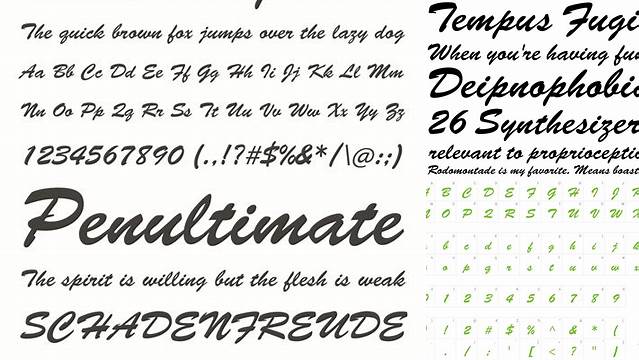
Brush Script Std Font: Free Download & Usage Guide
Hey guys! Are you looking to add a touch of classic elegance and flowing script to your design projects? Look no further! Brush Script Std is a fantastic font that can bring a vintage, handwritten feel to invitations, logos, posters, and more. In this guide, we'll dive deep into everything you need to know about Brush Script Std, including its history, characteristics, where to download it for free (legally, of course!), and how to best use it in your creative endeavors. We'll explore the nuances of this popular typeface, examining its strengths and weaknesses, and providing practical tips for making the most of its unique aesthetic. Whether you're a seasoned designer or just starting out, understanding Brush Script Std can significantly enhance your typographic toolkit. So, let's get started and unlock the potential of this timeless font! We will cover its distinctive features, such as its calligraphic strokes and connecting letters, which contribute to its unique charm and readability. Furthermore, we will delve into the historical context of Brush Script Std, tracing its origins and evolution within the broader landscape of typography. This historical perspective will provide valuable insights into the font's design principles and its enduring appeal across different eras. Additionally, we will explore real-world examples of how Brush Script Std has been used effectively in various design applications, from branding and advertising to packaging and editorial design. These examples will serve as inspiration and guidance for your own creative projects, helping you visualize the font's versatility and potential impact. We will also discuss common pitfalls to avoid when using Brush Script Std, such as overusing it in designs or pairing it with incompatible fonts. By understanding these potential challenges, you can make informed decisions and ensure that Brush Script Std enhances rather than detracts from your overall design aesthetic. Finally, we will provide a comprehensive overview of the licensing considerations associated with Brush Script Std, ensuring that you are aware of the legal aspects of using the font in your projects. This will help you avoid any copyright issues and ensure that you are using the font responsibly and ethically.
Let's get down to the basics. Brush Script Std is a casual, connecting script typeface designed by Edwin W. Shaar in 1942. It mimics the look of handwriting created with a brush, giving it a personal and informal vibe. Think of it as a friendly, approachable font, perfect for projects that need a human touch. The font's character set includes a comprehensive range of glyphs, supporting various languages and typographic needs. It features both uppercase and lowercase letters, as well as numerals, punctuation marks, and symbols. The lowercase letters are designed to connect seamlessly, creating a flowing and cohesive script. This connectivity is one of the key characteristics that distinguishes Brush Script Std from other script fonts, lending it a natural and fluid appearance. The font's design also incorporates subtle variations in stroke weight and letterform, further enhancing its handwritten feel. These variations mimic the slight imperfections and irregularities that are inherent in actual brush lettering, adding to its authenticity and charm. Brush Script Std is particularly well-suited for headlines, titles, and short blocks of text, where its distinctive character can make a strong visual impact. It is often used in invitations, greeting cards, posters, and advertising materials, where its friendly and informal tone can help create a welcoming and engaging message. However, due to its cursive nature and relatively informal appearance, Brush Script Std may not be the best choice for body text or lengthy paragraphs. In these applications, its readability can be compromised, and it may not convey the desired level of professionalism or authority. Therefore, it is important to consider the specific context and purpose of your design when deciding whether to use Brush Script Std. In summary, Brush Script Std is a versatile and expressive script font that can add a touch of personality and warmth to a wide range of design projects. Its handwritten appearance and connecting letterforms make it a popular choice for designers seeking a casual and approachable aesthetic. However, it is important to use the font judiciously and in appropriate contexts to maximize its impact and avoid any potential readability issues.
So, what makes Brush Script Std stand out from the crowd? Let's break down its key features:
- Connecting Letters: The lowercase letters flow seamlessly into each other, creating a natural, handwritten appearance. This is a signature element of Brush Script Std and adds to its overall charm.
- Casual and Informal: It's not stuffy or formal. Brush Script Std has a relaxed and friendly feel, making it ideal for projects that need a personal touch.
- Brush-like Strokes: The font mimics the strokes of a brush, with varying thicknesses and a slightly textured appearance. This gives it a handmade quality.
- Versatile: While it shines in headlines and short text blocks, it can also be used effectively in logos, invitations, and other design elements.
- Readability: While stylish, Brush Script Std maintains good readability, especially in larger sizes. However, it's best to avoid using it for long blocks of text.
- Distinctive Swashes: Some versions of Brush Script Std include decorative swashes and alternates, adding even more flair and personality to the font.
These key features combine to make Brush Script Std a unique and versatile typeface that can enhance a wide range of design projects. Its connecting letters, casual tone, and brush-like strokes contribute to its handwritten appearance, while its readability and stylistic options make it a practical choice for various applications. The font's distinctive swashes and alternates provide additional opportunities for customization and creative expression, allowing designers to tailor the font to their specific needs and preferences. In addition to these features, Brush Script Std also boasts a timeless quality that has contributed to its enduring popularity. Despite being designed in 1942, the font continues to resonate with designers and audiences alike, making it a classic choice for projects that require a touch of vintage charm. Its versatility and readability have also contributed to its longevity, ensuring that it remains a relevant and useful typeface in the digital age. However, it is important to note that Brush Script Std is not without its limitations. Its informal and casual tone may not be appropriate for all design contexts, particularly those that require a more formal or professional aesthetic. Additionally, its connecting letters can sometimes pose challenges in certain design applications, such as when using the font in small sizes or in combination with other fonts that have a more rigid structure. Therefore, it is crucial to consider the specific requirements of your project when deciding whether to use Brush Script Std, and to experiment with different font pairings and layouts to ensure that it complements your overall design effectively.
- Headlines and Titles: This is where Brush Script Std shines! Its elegant and eye-catching style makes it perfect for grabbing attention in headlines and titles. Use it to create a memorable first impression.
- Logos and Branding: Brush Script Std can add a touch of sophistication to logos and branding materials, especially for businesses that want to convey a classic or handcrafted feel. Think of bakeries, boutiques, or vintage shops.
- Invitations and Greeting Cards: The handwritten look of Brush Script Std makes it ideal for invitations, greeting cards, and other personalized stationery. It adds a warm and personal touch to any message.
Brush Script Std is a timeless font that can add a touch of elegance and personality to your design projects. By understanding its key features, where to download it legally, and how to use it effectively, you can unlock its full potential and create stunning designs. So go ahead, give it a try, and let your creativity flow! Remember to always prioritize readability and balance when using script fonts, and don't be afraid to experiment with different font pairings and layouts. With a little practice, you can master the art of typography and create designs that are both visually appealing and highly effective. Ultimately, the goal of typography is to communicate your message clearly and effectively, while also creating a positive and engaging user experience. By choosing the right fonts and using them in a thoughtful and intentional way, you can achieve this goal and create designs that truly stand out. In addition to the tips and suggestions outlined in this guide, there are many other resources available online that can help you learn more about typography and font pairing. Websites like Typewolf, Fonts in Use, and I Love Typography offer a wealth of information and inspiration, while online courses and workshops can provide you with in-depth training and guidance. By taking advantage of these resources, you can continue to develop your skills and knowledge in typography and become a more confident and effective designer. So, embrace the world of typography, explore the endless possibilities of font pairing, and let your creativity soar! With a little practice and dedication, you can create designs that are not only visually stunning but also communicate your message clearly and effectively to your target audience. Remember, typography is an essential element of design, and mastering it can significantly enhance your ability to create impactful and memorable visual experiences.